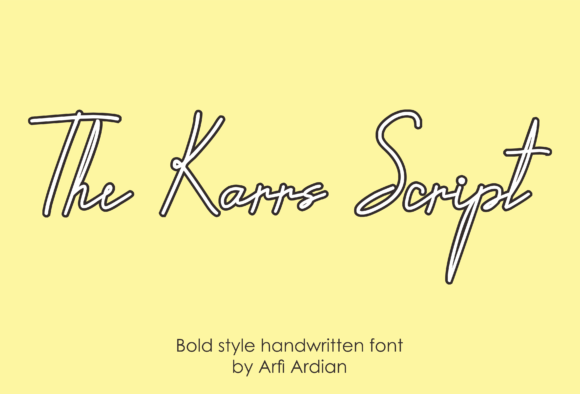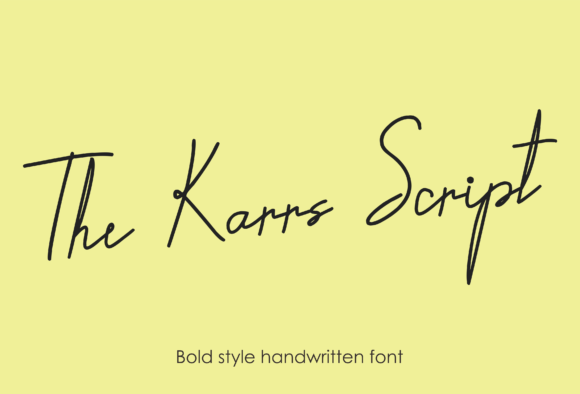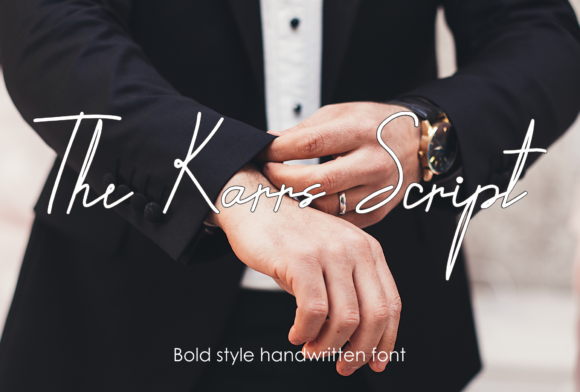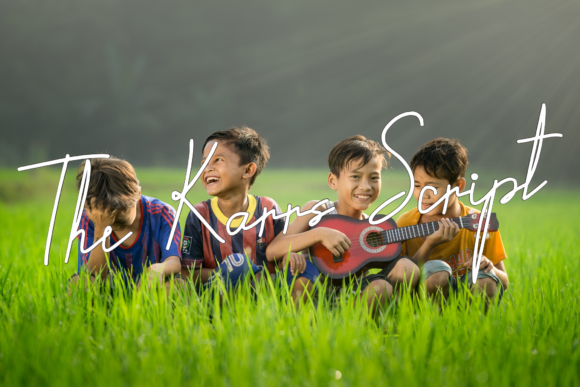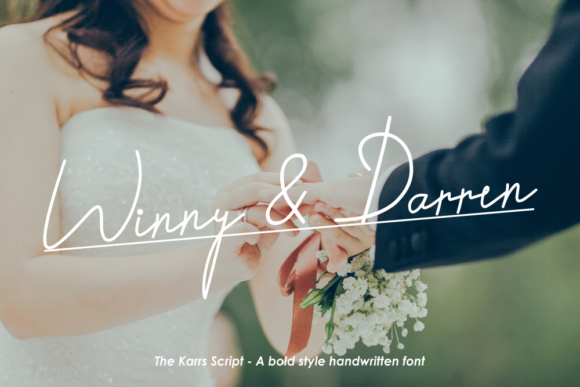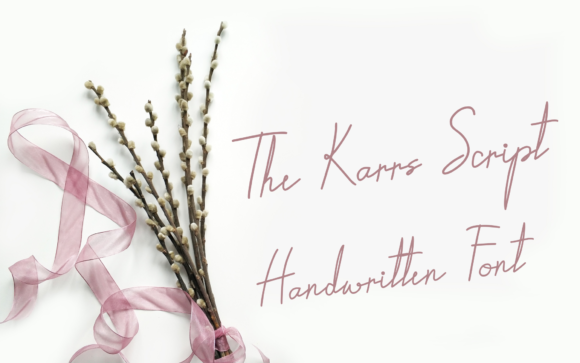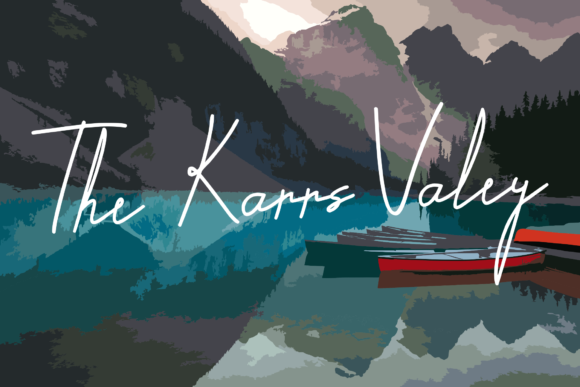
HomeScript FontsThe Karrs Script Font Script Fonts The Karrs Script Font FacebookXPinterestWhatsApp The Karrs Script Font Poster 2 The Karrs Script Font Poster 3 The Karrs Script Font Poster 4 The Karrs Script Font Poster 5 The Karrs Script Font Poster 6 The Karrs Script Font Poster 7 About The Karrs Script Font The Karrs is a bold and authentic handwritten font. It will turn any design project into a unique stand out! DOWNLOAD ON CREATIVE FABRICAThis font is sold and delivered by Creative Fabrica. Font Canyon may earn a commission if you buy through this link. People also explored Astone Update Font Arthemis Font Dream Beach Font Doglas Font Cactuss Font Snowfall Font Dream Culture Font Merijola Font Nextart Semi-Bold Font 283 0 TagsThe Karrs Script Font Previous articleSenada FontNext articleWatasyina Font LEAVE A REPLY Cancel reply Comment: Please enter your comment! Name:* Please enter your name here Email:* You have entered an incorrect email address! Please enter your email address here Website: Save my name, email, and website in this browser for the next time I comment. Personal Use Free Andolas Personal Use Free Read more about this font Rumaniaya Personal Use Free Read more about this font Single Sleeve Personal Use Free Read more about this font Vanilla Whale Personal Use Free Read more about this font BLOG The 10 Best Handwriting Fonts to Add Personality to Your Designs 10 of the Best Handwriting Fonts for Adding Personality to Your Designs There will undoubtedly be no other better choice than handwriting fonts to give... Transform Your Website: Elevate Your Typography with 7 Best Web Font Generators 5 Fonts That Will Dominate Design Trends in 2026 Elegant Wedding Invitation Fonts – Handwritten & Script Fonts